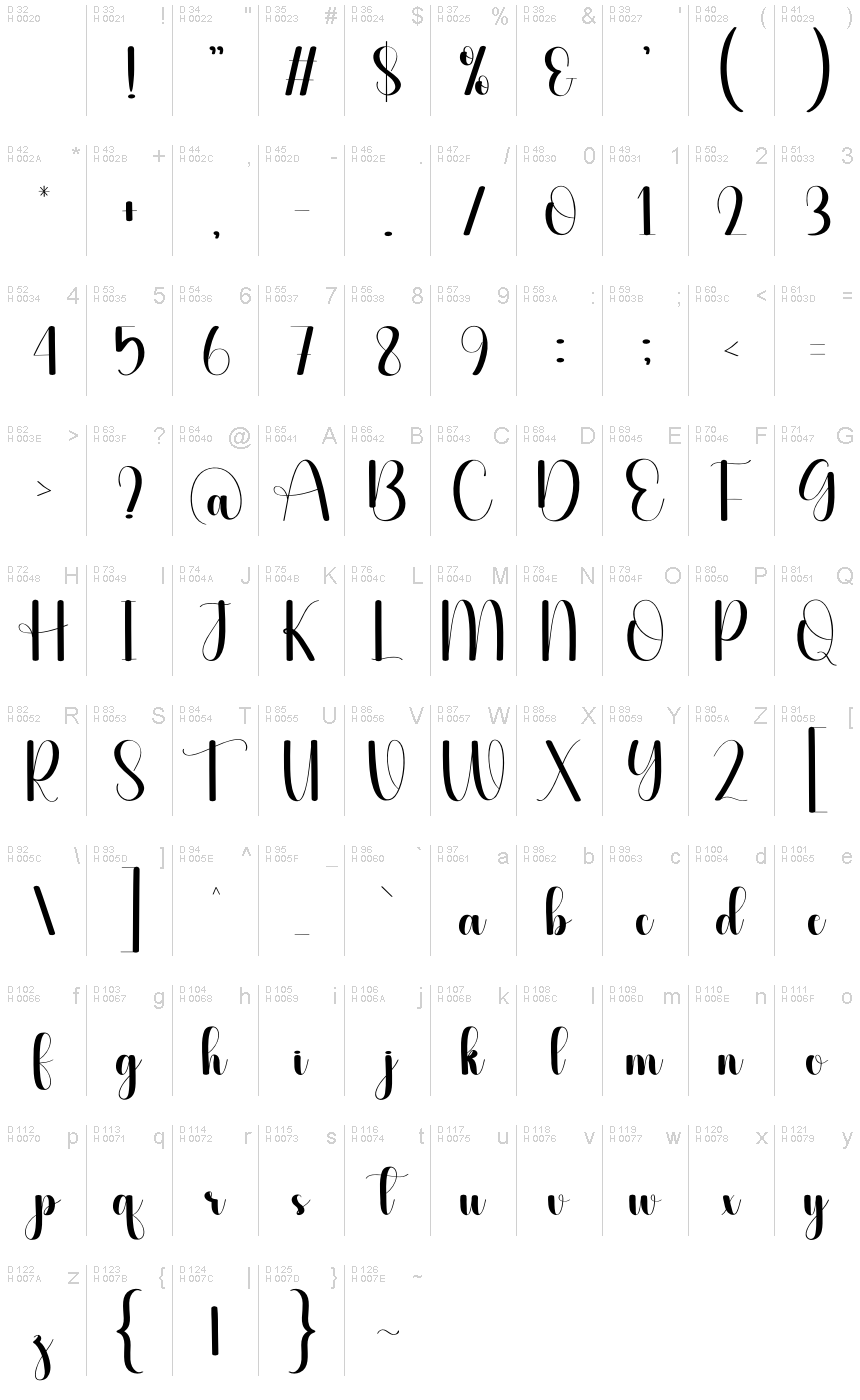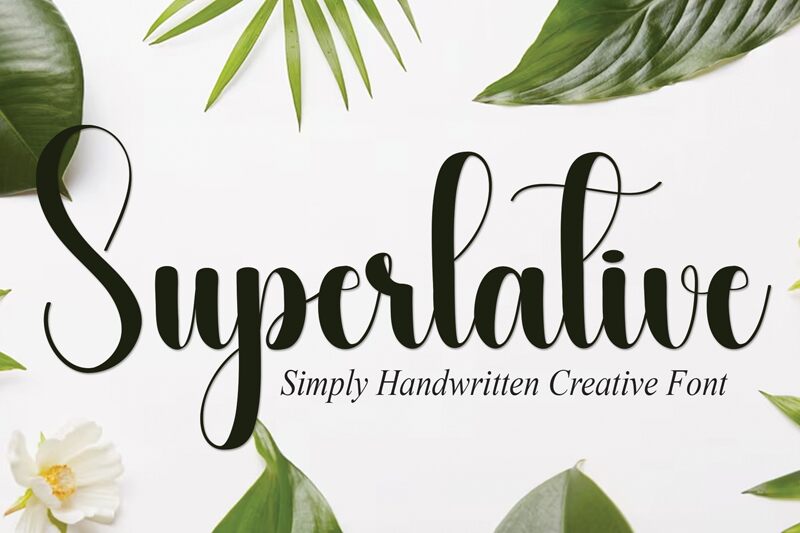
Superlative
Superlative font, designed by Scratchones, embodies the elegance of calligraphy with its flowing curves and sophisticated flourishes. Its dramatic swirls and distinctively sweeping strokes create an enchanting visual rhythm, making it a captivating choice for any design.
The font’s expressive characteristics lend themselves beautifully to a variety of applications. It shines in invitations and branding, where a touch of refinement is desired, while also enhancing creative projects such as poetry or personal correspondence. Superlative exudes charm and artistry, effortlessly capturing attention and evoking emotion in any context. Whether used for digital or print designs, this font transforms ordinary text into an exceptional experience.